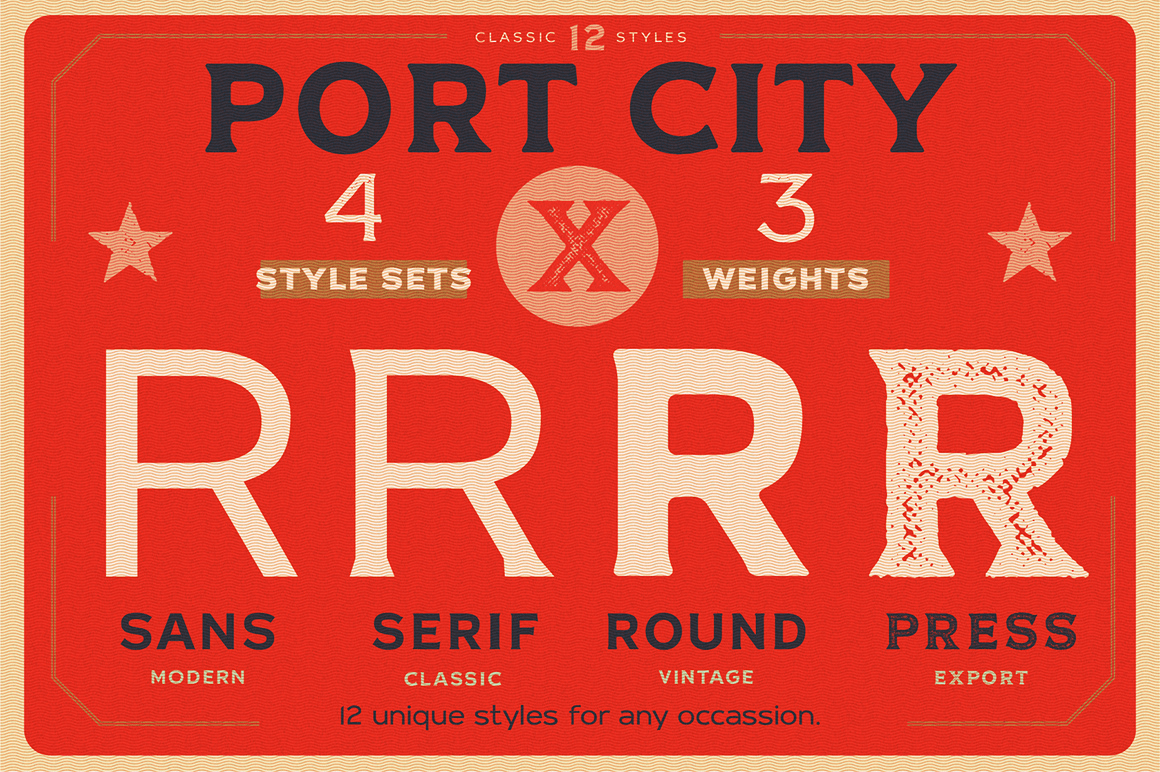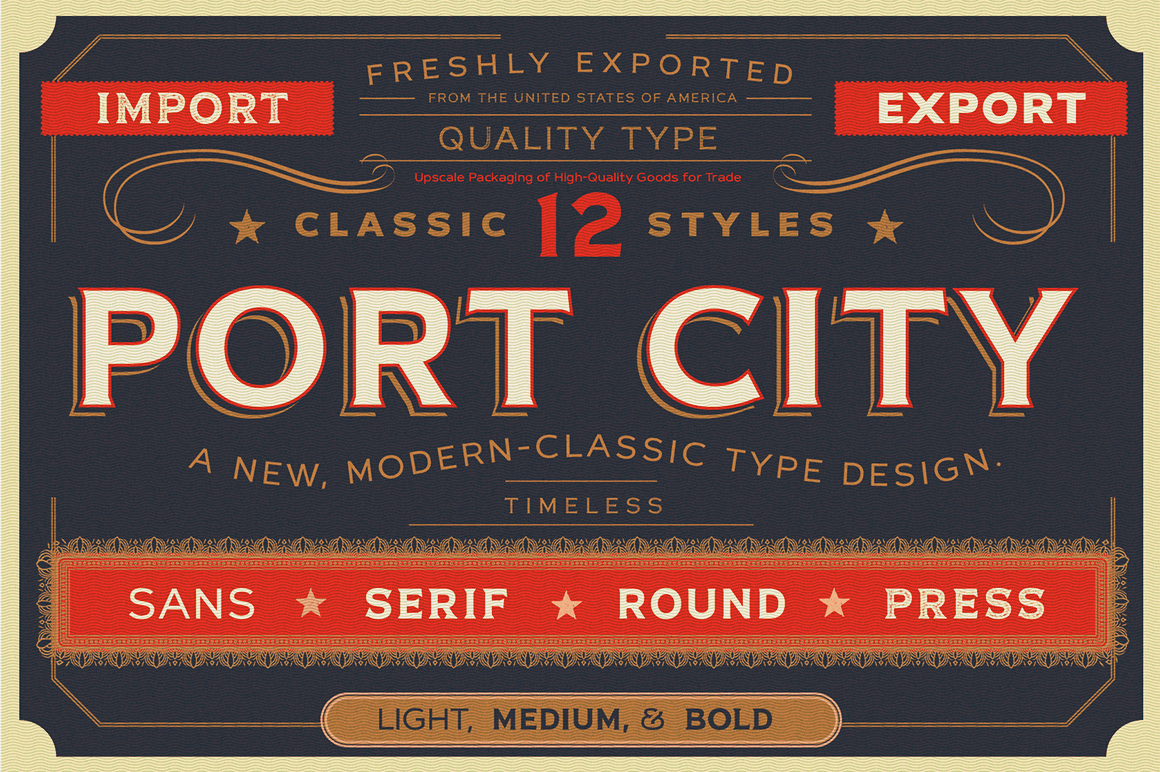
About Port City
PORT CITY is a modern-classic type family designed by Conrad Garner and is inspired by the goods and packages that are shipped in and out daily from port cities across the globe and the mighty vessels that carry their precious cargo from port to port.…